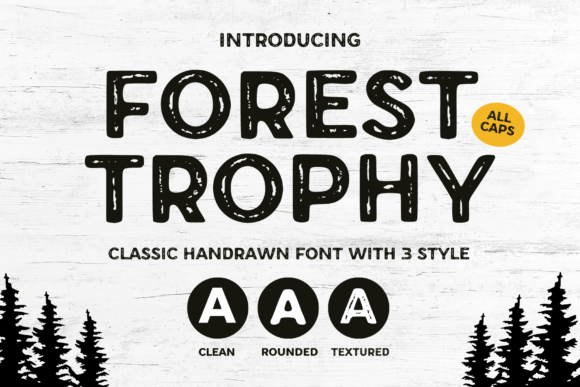
Forest Trophy Font: A Classic Display Font for Outdoor Apparel and More
Are you looking for a font that can add a touch of natural and vintage charm to your outdoor apparel, merchandise, event posters, or movie titles? Look no further than the Forest Trophy font. This classic display font features a rough texture that gives it a unique, earthy feel that’s perfect for a wide range of design projects.
Key Features of Forest Trophy Font
- Rough Texture: The Forest Trophy font features a rough, natural texture that gives it a vintage and earthy feel.
- Classic Display Font: This font is designed to make a statement, with bold and elegant lettering that’s perfect for headlines and titles.
- Versatile: Forest Trophy is suitable for a wide range of design projects, including outdoor apparel, merchandise, event posters, movies, and more.
- Easily Readable: Despite its bold and rugged texture, the Forest Trophy font is easy to read, even at smaller sizes.
Design Inspiration: The Natural Beauty of Forest Trophy
The Forest Trophy font draws inspiration from the natural world, with a rough texture that evokes the feeling of wood, stone, or earth. This font is perfect for designers who want to add a touch of organic charm to their work, without sacrificing style or sophistication.
Whether you’re designing a logo for an outdoor gear company, creating a poster for a music festival, or titling a movie, the Forest Trophy font is a great choice. Its unique texture and classic design make it a versatile font that can be used in a wide range of contexts.
Uses for Forest Trophy Font
The Forest Trophy font is a versatile design tool that can be used in a wide range of projects. Here are some ideas to get you started:
- Outdoor Apparel: Use Forest Trophy to create bold and eye-catching logos for outdoor gear companies, or to add a touch of natural charm to your clothing and accessory designs.
- Merchandise: Forest Trophy is perfect for creating merchandise designs that need to stand out, such as t-shirts, hats, and tote bags.
- Event Posters: Add a touch of rustic charm to your event posters with Forest Trophy, perfect for music festivals, outdoor concerts, and more.
- Movies and Film: Use Forest Trophy to create bold and dramatic titles for your movie or film project, or to add a touch of natural charm to your movie posters.
The Benefits of Using Forest Trophy Font
There are many benefits to using the Forest Trophy font in your design projects. Here are a few:
- Unique Texture: The Forest Trophy font features a unique and eye-catching texture that sets it apart from other fonts.
- Versatility: Forest Trophy can be used in a wide range of design projects, from outdoor apparel to movie titles.
- Easily Readable: Despite its bold and rugged texture, the Forest Trophy font is easy to read, even at smaller sizes.
- Time-Saving: With Forest Trophy, you can create professional-looking designs in a fraction of the time it would take to design from scratch.
Tips for Using Forest Trophy Font
Here are a few tips for getting the most out of the Forest Trophy font:
- Use it boldly: Forest Trophy is a bold and dramatic font, so don’t be afraid to use it in large sizes to make a statement.
- Experiment with colors: The Forest Trophy font looks great in a range of colors, from earthy browns and greens to bold and bright hues.
- Pair it with other fonts: Forest Trophy can be paired with a range of other fonts to create interesting and dynamic designs.
- Pay attention to spacing: As with any font, make sure to pay attention to spacing and kerning to ensure that your design looks professional and polished.
Where to Use Forest Trophy Font
The Forest Trophy font can be used in a wide range of design projects, including:
- Outdoor gear and apparel: Use Forest Trophy to create bold and eye-catching logos for outdoor gear companies, or to add a touch of natural charm to your clothing and accessory designs.
- Merchandise: Forest Trophy is perfect for creating merchandise designs that need to stand out, such as t-shirts, hats, and tote bags.
- Event posters: Add a touch of rustic charm to your event posters with Forest Trophy, perfect for music festivals, outdoor concerts, and more.
- Movies and film: Use Forest Trophy to create bold and dramatic titles for your movie or film project, or to add a touch of natural charm to your movie posters.
- Advertising: Forest Trophy can be used in advertising campaigns to add a touch of natural charm and sophistication.
- Packaging: Use Forest Trophy to create eye-catching packaging designs that stand out on store shelves.
The Forest Trophy font is a versatile and stylish design tool that can be used in a wide range of projects. Its unique texture and classic design make it a great choice for designers who want to add a touch of natural charm to their work. Whether you’re designing a logo for an outdoor gear company, creating a poster for a music festival, or titling a movie, Forest Trophy is a great choice.